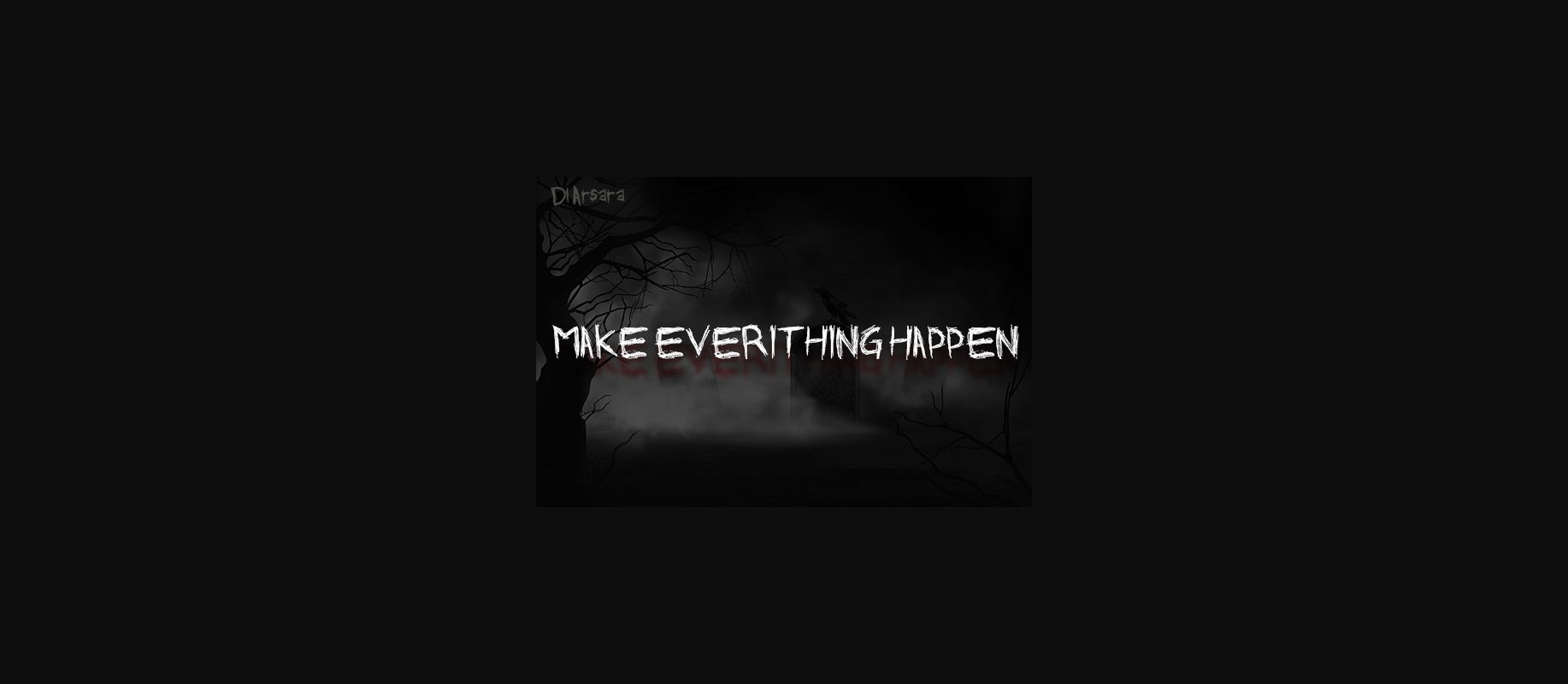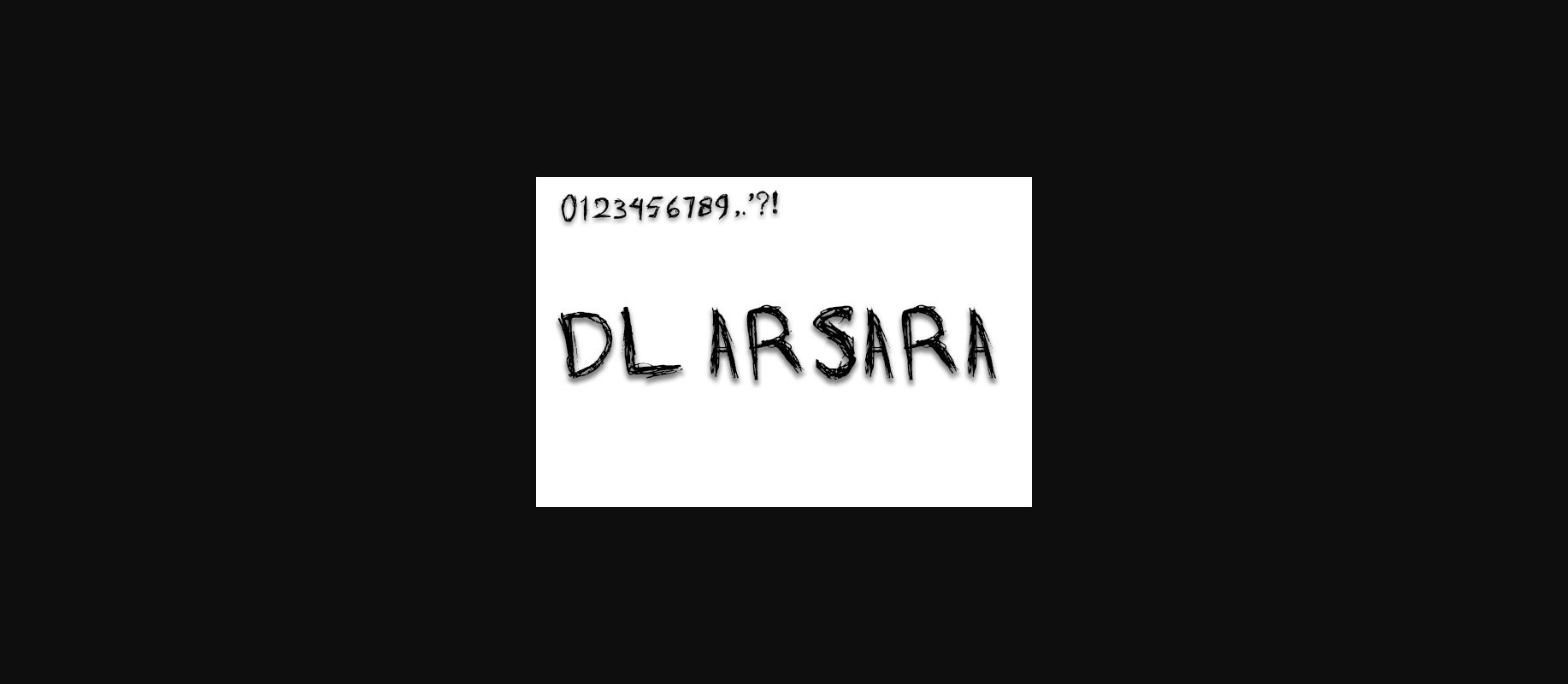
HomeDecorative FontsDl Arsara Font Decorative Fonts Dl Arsara Font FacebookXPinterestWhatsApp 1 of 2 About Dl Arsara Font Dl Arsara is a spooky font that is perfect for Halloween or any horror-themed design. DOWNLOAD NOW People also explored Hardolyn Font Continue Font Halland Font Mengkengs Font Stylish Font Endestry Font Great Font Awake Font Big Points Font 299 0 TagsDl Arsara Font Previous articleRose Blank FontNext articleRobek Font LEAVE A REPLY Cancel reply Comment: Please enter your comment! Name:* Please enter your name here Email:* You have entered an incorrect email address! Please enter your email address here Website: Save my name, email, and website in this browser for the next time I comment. Personal Use Free Proudly Personal Use Free Read more about this font Turpentine Personal Use Free Read more about this font Super Discount Personal Use Free Read more about this font Allea Sweet Personal Use Free Read more about this font BLOG Free Fonts Risk: Why Free Fonts Can Be Dangerous for Designers Free Fonts Risk: Why Free Fonts Can Be Dangerous for Designers Using free fonts is a common practice in web and graphic design. However, the... Exploring Font Trends Free vs Paid Fonts: Why Investing in Premium Fonts Is Worth It Best Fonts for T-Shirt Design – Top 2025 Picks